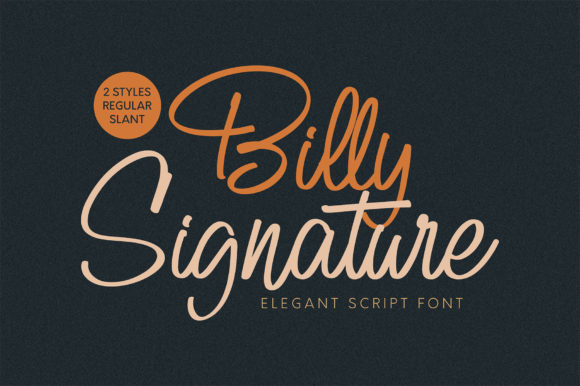
Unleash the allure of Billy Signature Font, an extraordinary script font that breathes life into your creative endeavors. This exquisite handwritten masterpiece effortlessly blends the timeless elegance of calligraphy with a modern, invigorating twist. Prepare to be captivated as you witness the harmony of classic and contemporary aesthetics coming together seamlessly.
With Billy Signature Font, you hold the power to elevate your designs to unprecedented heights. Whether you're crafting posters, branding identities, wedding invitations, or any project that demands a touch of sophistication, this font will elevate your work to new realms of beauty. Its versatility knows no bounds, adapting effortlessly to digital and print media alike.
Immerse yourself in the world of Billy Signature Font and discover a treasure trove of possibilities. Let your imagination run wild as you explore its captivating characters, each meticulously crafted to evoke a sense of timeless elegance. Feel the words flow effortlessly from your fingertips as you create designs that resonate with your audience on a profound level.